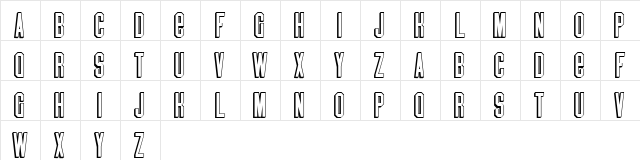
BlindMelon Regular Free Font
BlindMelon Regular
Design Context for BlindMelon
BlindMelon is a composed and adaptable typeface that performs quietly and consistently across a wide range of design contexts.